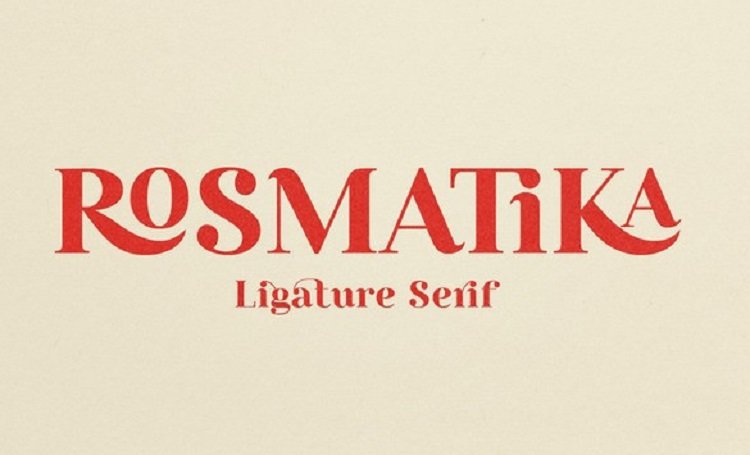
Hello friend. This is a modern font inspired by classic serifs, designed for logos & branding or editorial spreads. It’s a perfect relationship balancing dynamic energy and beautiful order. Introducing Rosmatika Font. It’s a contemporary Didone Serif with many ligature.
This font is a display font with high contrast so it is suitable for use in branding projects, logos, wedding designs, social media posts, product packaging, labels, watermarks, invitations, advertisements and projects that require bold fonts and are easy to read.
Rosmatika has more than 500 glyphs that support extended latin language and feature features such as standard and discretionary ligature, language specific forms, and manual alternate access.